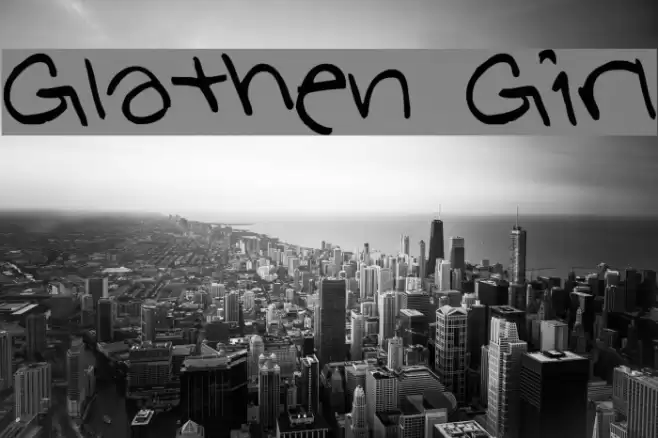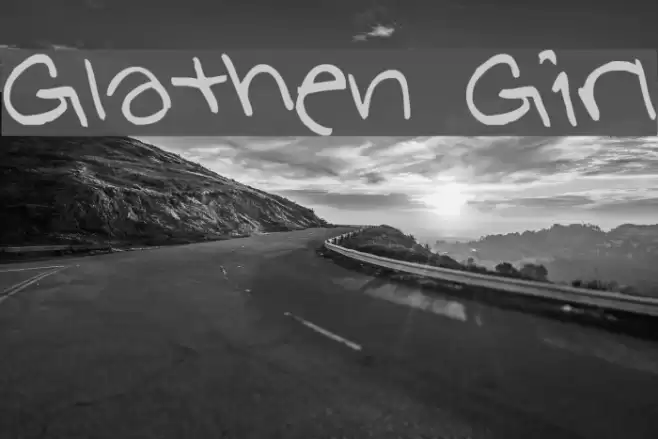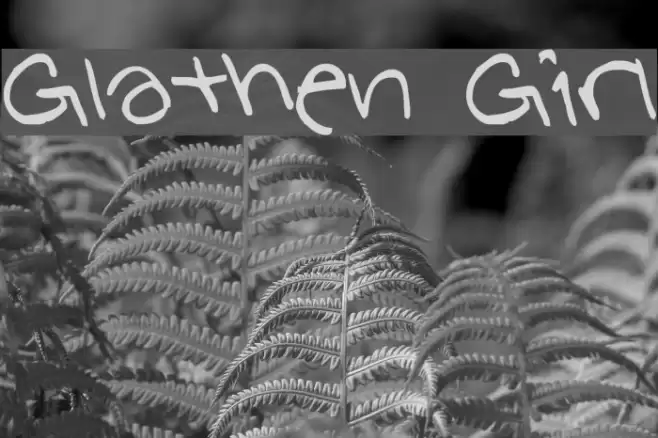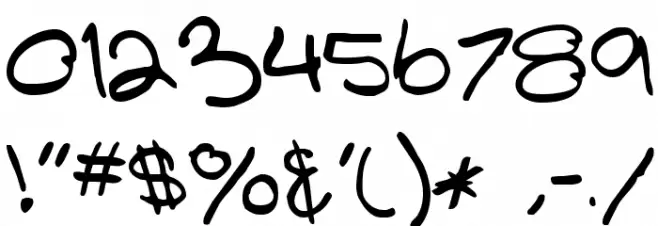
Glathen Girl Font
Glathen Girl Description
This font exudes a playful and casual vibe, characterized by its handwritten style that mimics natural penmanship. The letters are slightly irregular, adding a personal and informal touch. The strokes are bold and consistent, providing a clear and legible appearance. The font maintains a uniform thickness throughout, with rounded edges that soften its overall look. It includes a full set of uppercase and lowercase letters, numbers, and a variety of special characters, making it versatile for different uses.
A playful, handwritten font with a casual and informal style from Uncategorized fonts.
- Proposed Projects: Ideal for greeting cards, children's books, casual branding, and social media graphics.
- Overall Style: Casual
- Use Case: Logos, Headlines, Informal Text